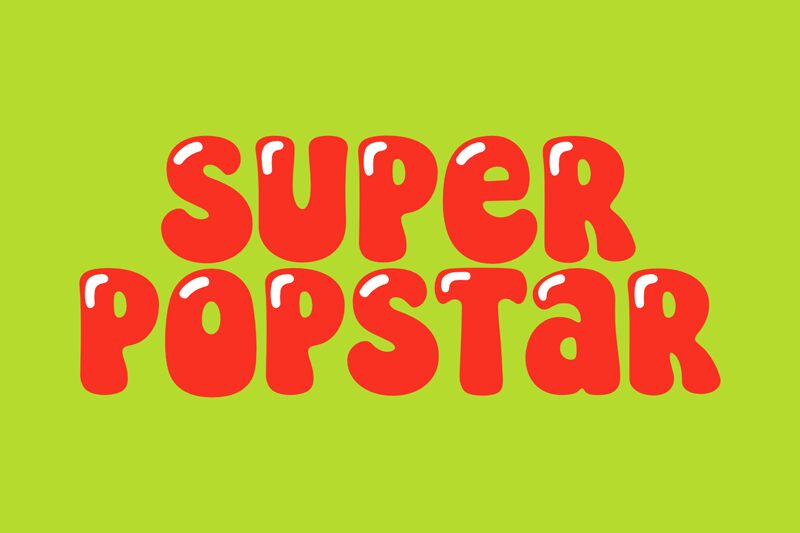
Super Popstar Regular
Super Popstar font by fsuarez913 is a free cartoon display typeface that bursts with bubbly, inky energy. Each letter looks like it’s been puffed up and dipped in glossy black paint, with soft curves and chunky shapes that feel almost squeezable. The tight rhythm across the wordmark gives it a bold, shout-out-loud presence that grabs attention in an instant.
Using Super Popstar, you can bring loud, candy-coated personality to kids’ book covers, birthday invitations, party posters, game logos, YouTube thumbnails, and playful sticker designs. This free font works best in big, bold sizes where its chubby forms can really shine; pair it with a clean, simple sans serif for smaller supporting text to keep everything readable and fun.